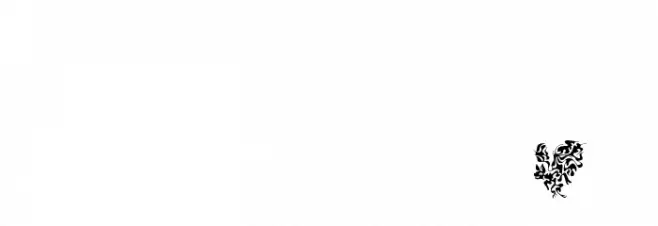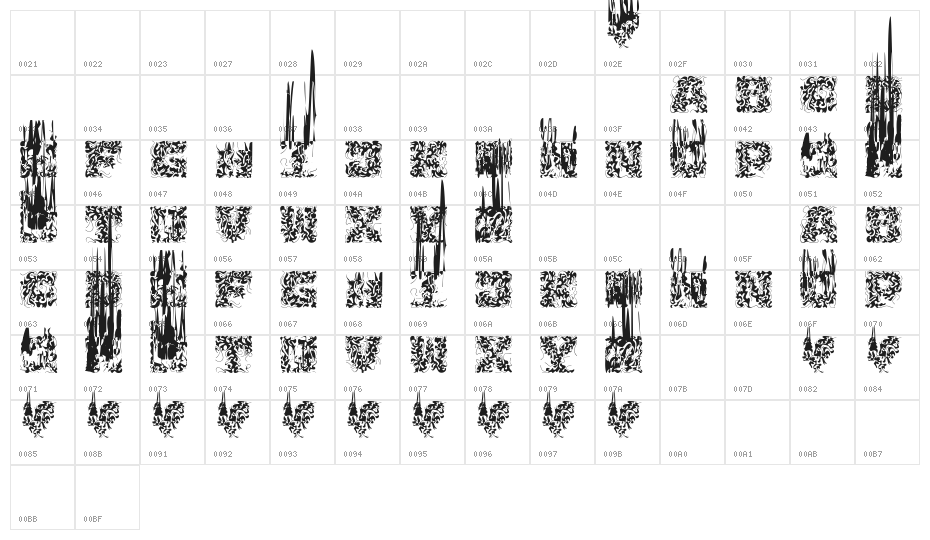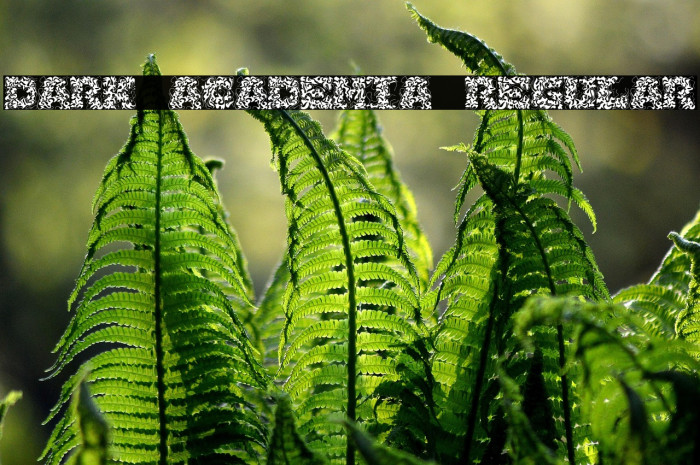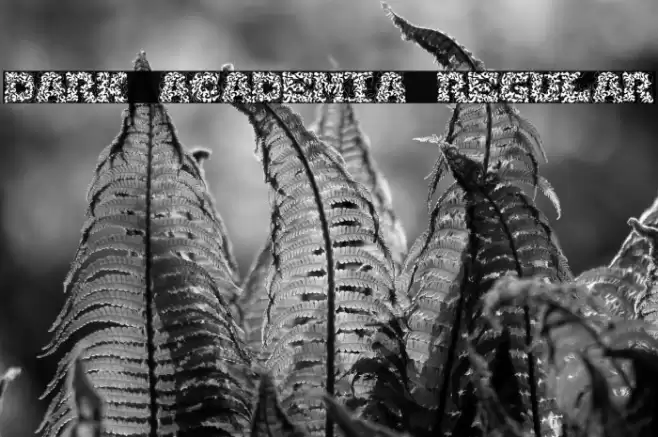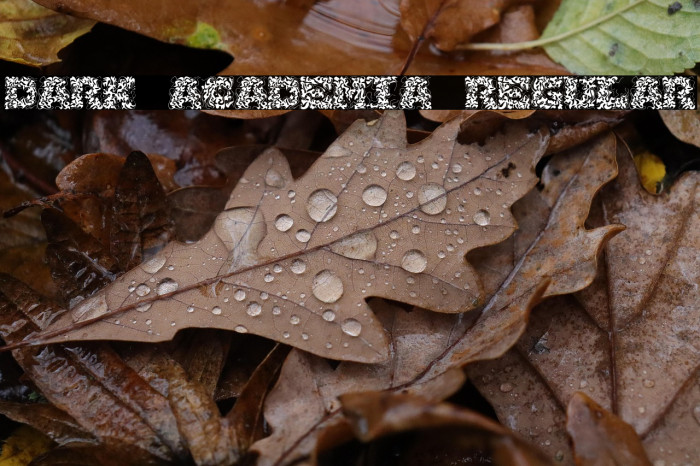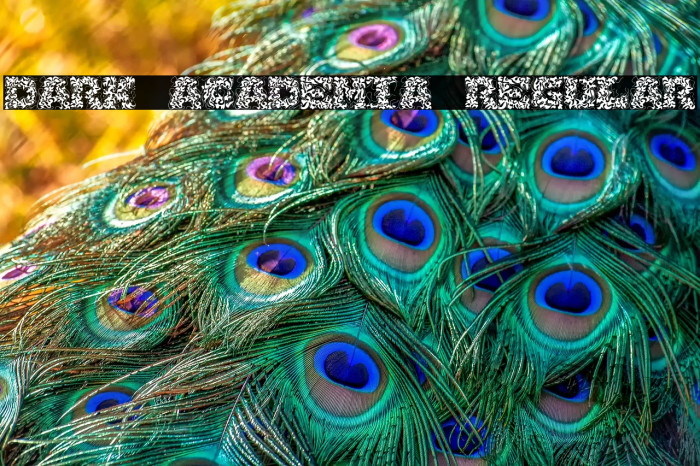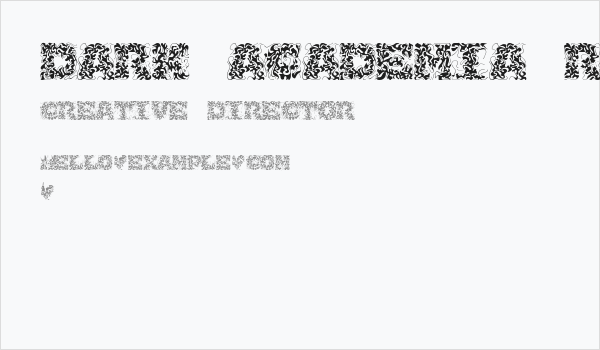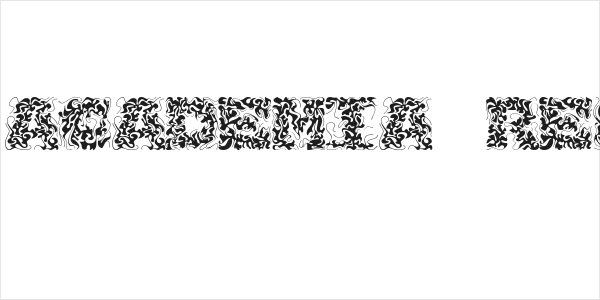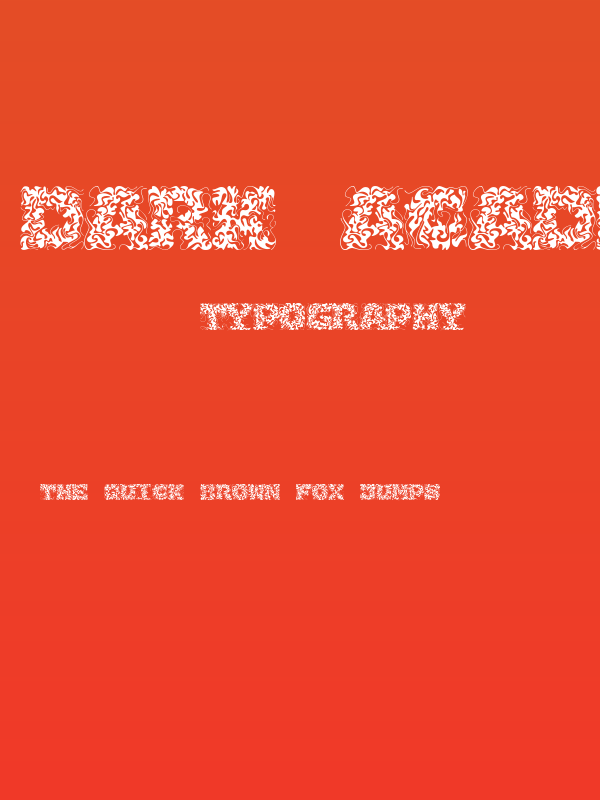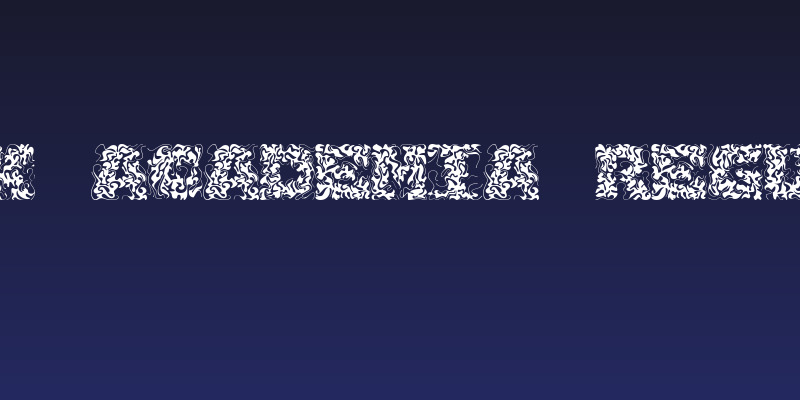
Dark Academia Regular Font
Dark Academia Regular Description
This font features an intricate and ornate design, characterized by elaborate, swirling patterns that fill each character. The decorative elements create a sense of mystery and sophistication, reminiscent of classic, gothic styles. Each letter is uniquely embellished, making it stand out with a bold and artistic flair. The font's complexity and detailed craftsmanship make it suitable for projects that require a touch of elegance and drama. Its unique style is perfect for creating eye-catching headlines or artistic designs that demand attention.
| Overall Style | Gothic, Artistic |
| Use Case | Headlines, Artistic designs, Branding |
| Proposed Projects | Ideal for book covers, posters, invitations, and branding that require a dramatic and artistic touch. |